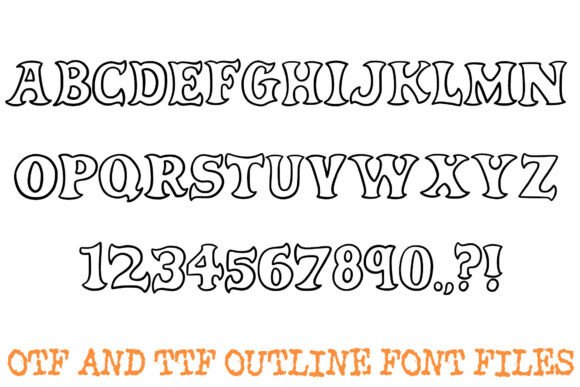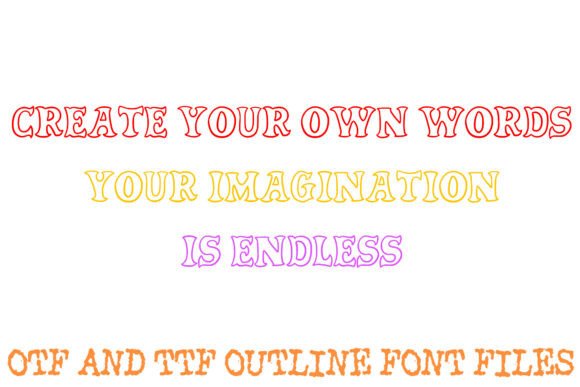
Introduction to Rodeo Circus Font
Step right up and ride into the sunset with the Rodeo Circus Font.
This hand-drawn display alphabet expertly blends the theatrical flair of a vintage circus with the rugged charm of a frontier town Featuring bold, ornate letterforms with distinctive notches and serifs, it’s the ultimate choice for high-impact posters, retro branding, and any project that needs a touch of old-world character.
Why Choose Rodeo Circus Font?
Rodeo Circus Font offers exceptional quality and versatility, making it a valuable addition to your design toolkit. Whether you’re creating for personal projects or commercial use, Rodeo Circus Font delivers professional results.